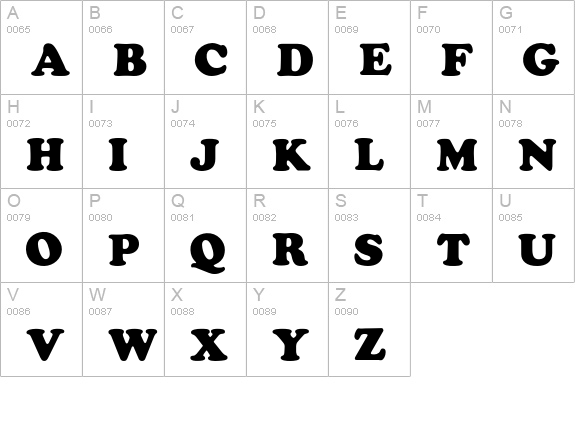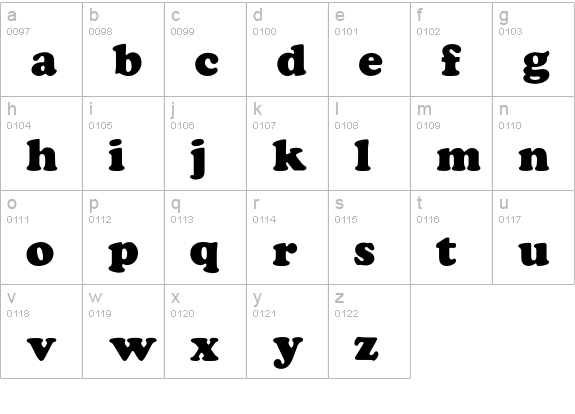
CooperBlackFont Font Details
Introducing CooperBlackFont, a classic and timeless typeface that exudes elegance and sophistication. This versatile font is perfect for a wide range of design projects, from elegant invitations to eye-catching logos. With its bold and distinctive letterforms, CooperBlackFont commands attention and adds a touch of class to any design. The best part? CooperBlackFont is completely free to download at FontsMarket.com. Whether you're a seasoned designer looking to add a new font to your collection or a beginner exploring typography for the first time, CooperBlackFont is a must-have addition to your toolkit. Don't miss out on this opportunity to elevate your designs with this stunning font. Download CooperBlackFont today and let your creativity shine.